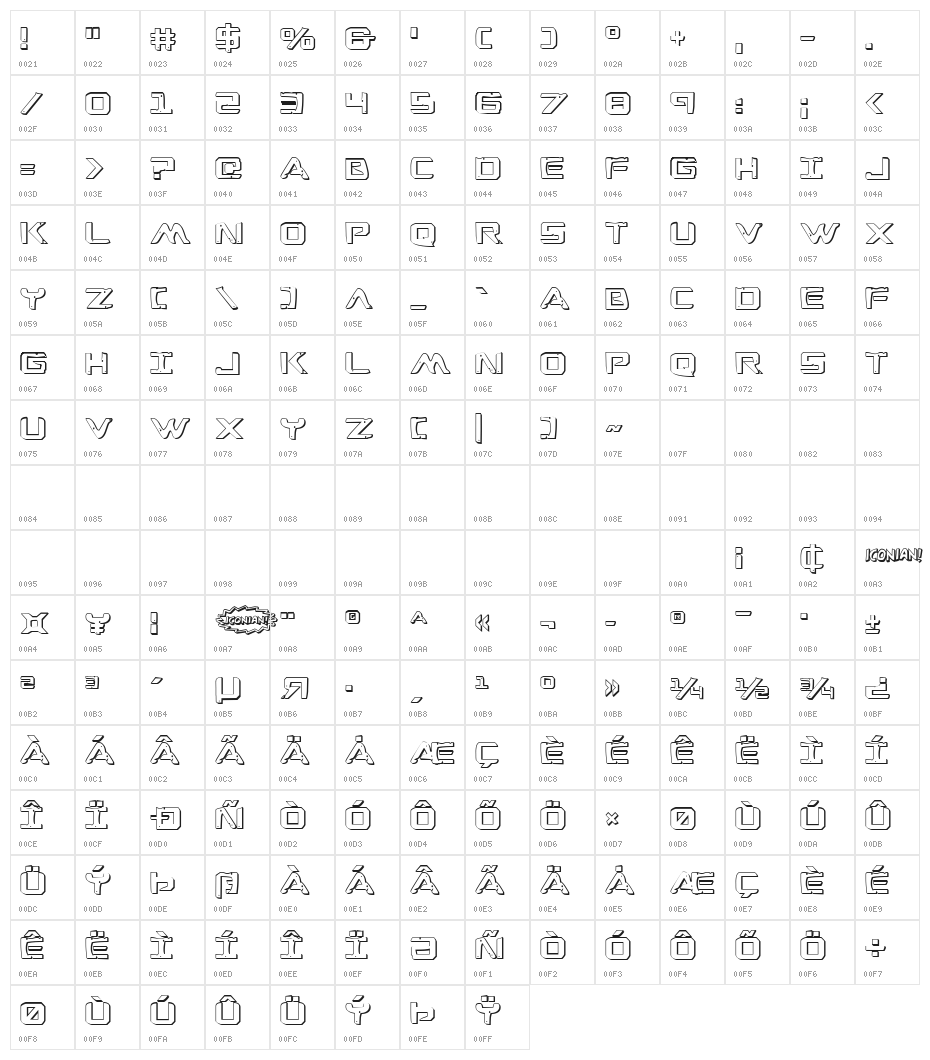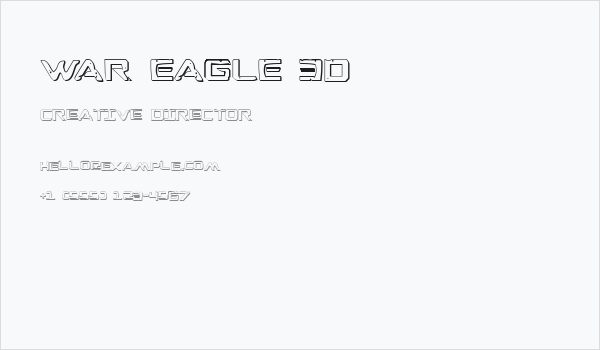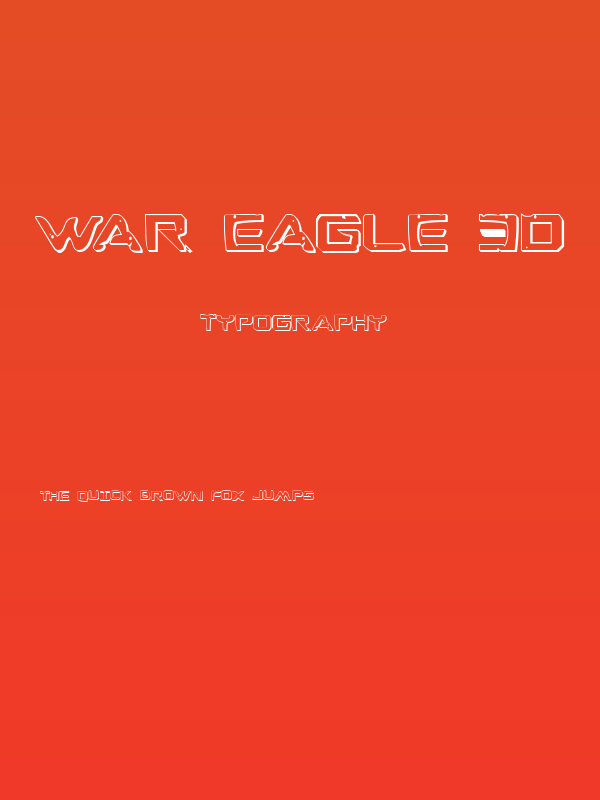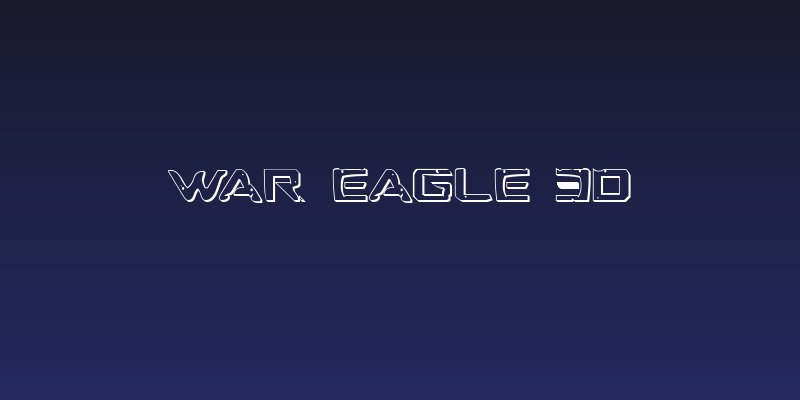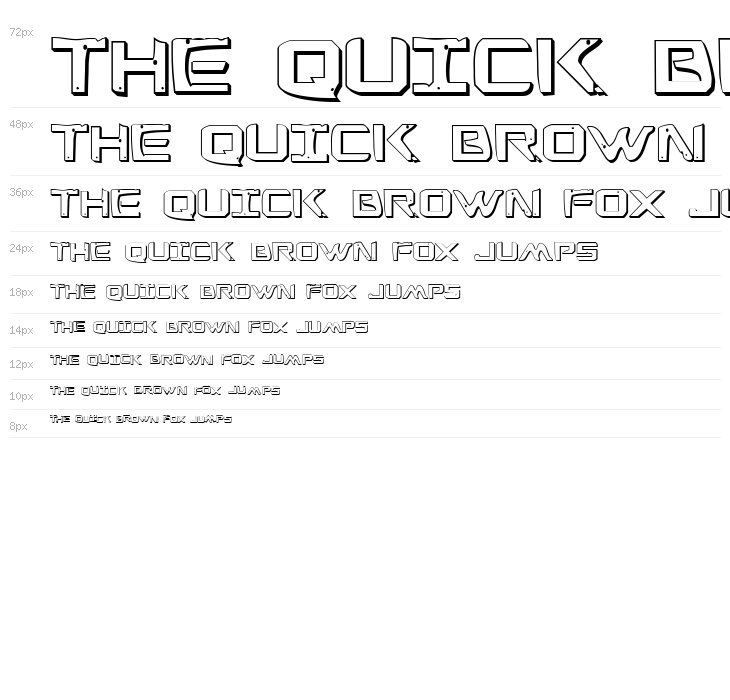
War Eagle 3D Font
War Eagle 3D Description
This font features a bold, futuristic design with a 3D effect that gives each character a sense of depth and dimension. The letters are constructed with sharp angles and geometric shapes, creating a modern and edgy appearance. The outline style adds a unique touch, making it stand out for creative projects. The uppercase and lowercase letters maintain a consistent style, while the numbers and special characters are designed to complement the overall aesthetic. This font is ideal for projects that require a strong visual impact.
| Proposed Projects | Ideal for video game titles, sci-fi movie posters, tech branding, and futuristic event flyers. |